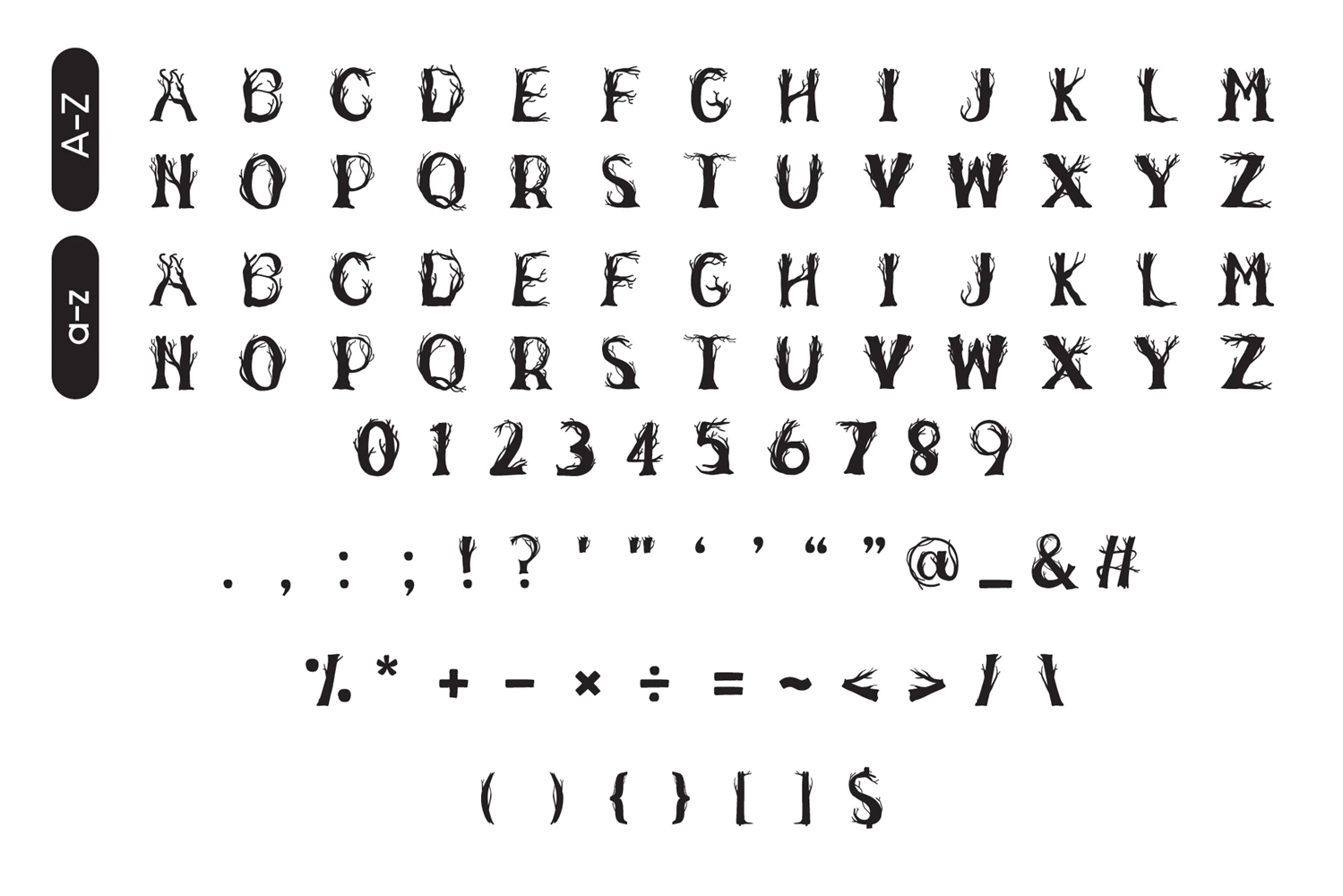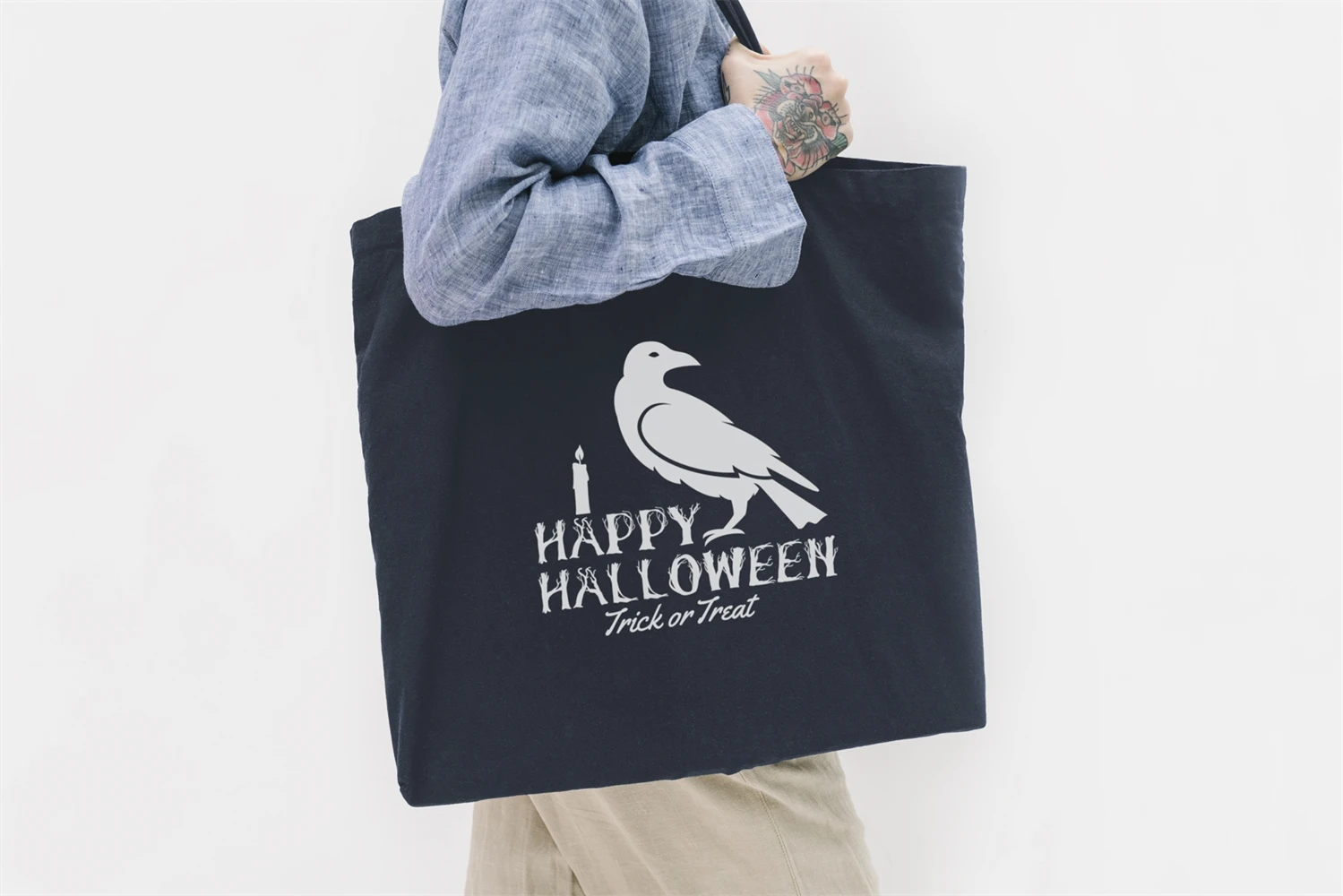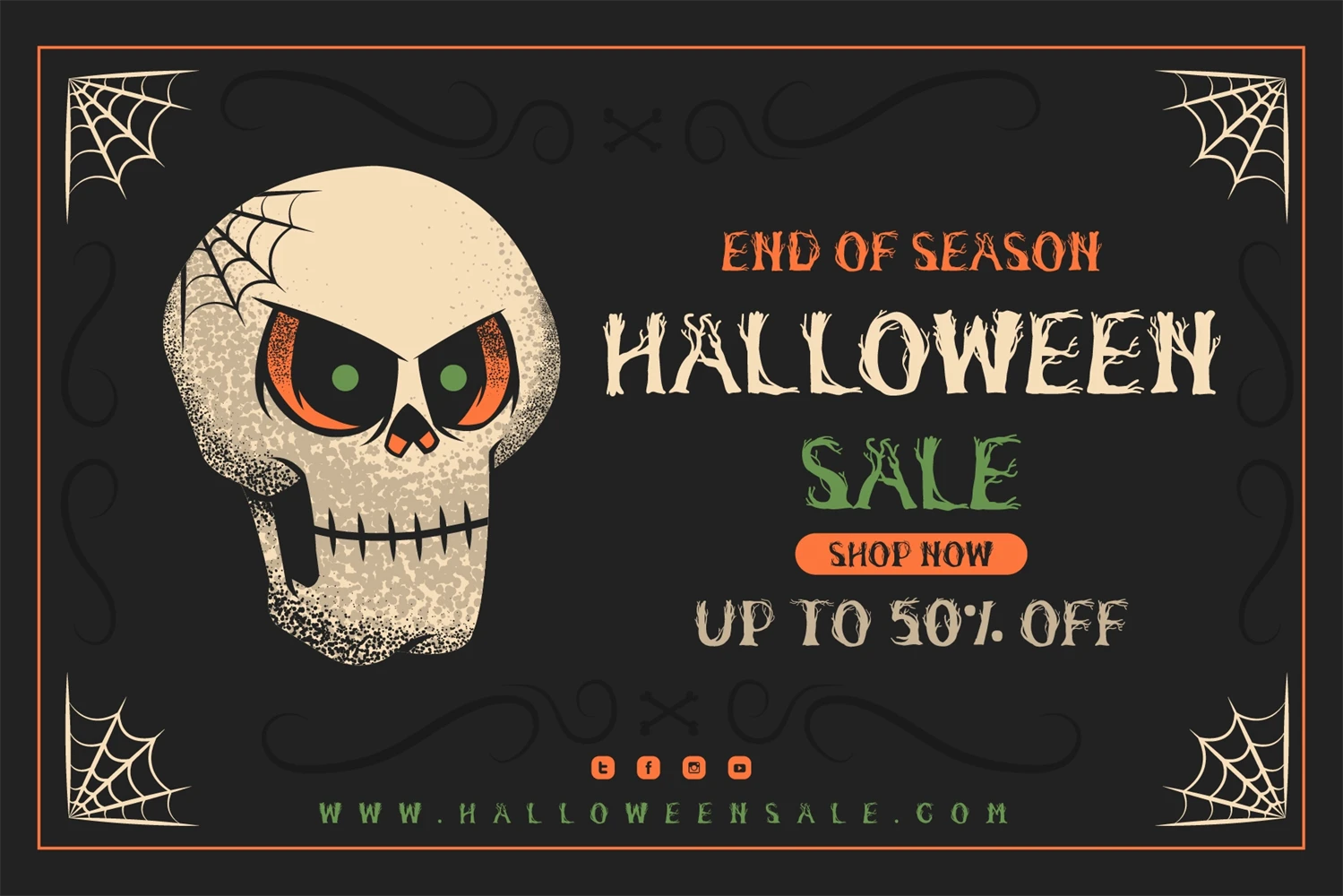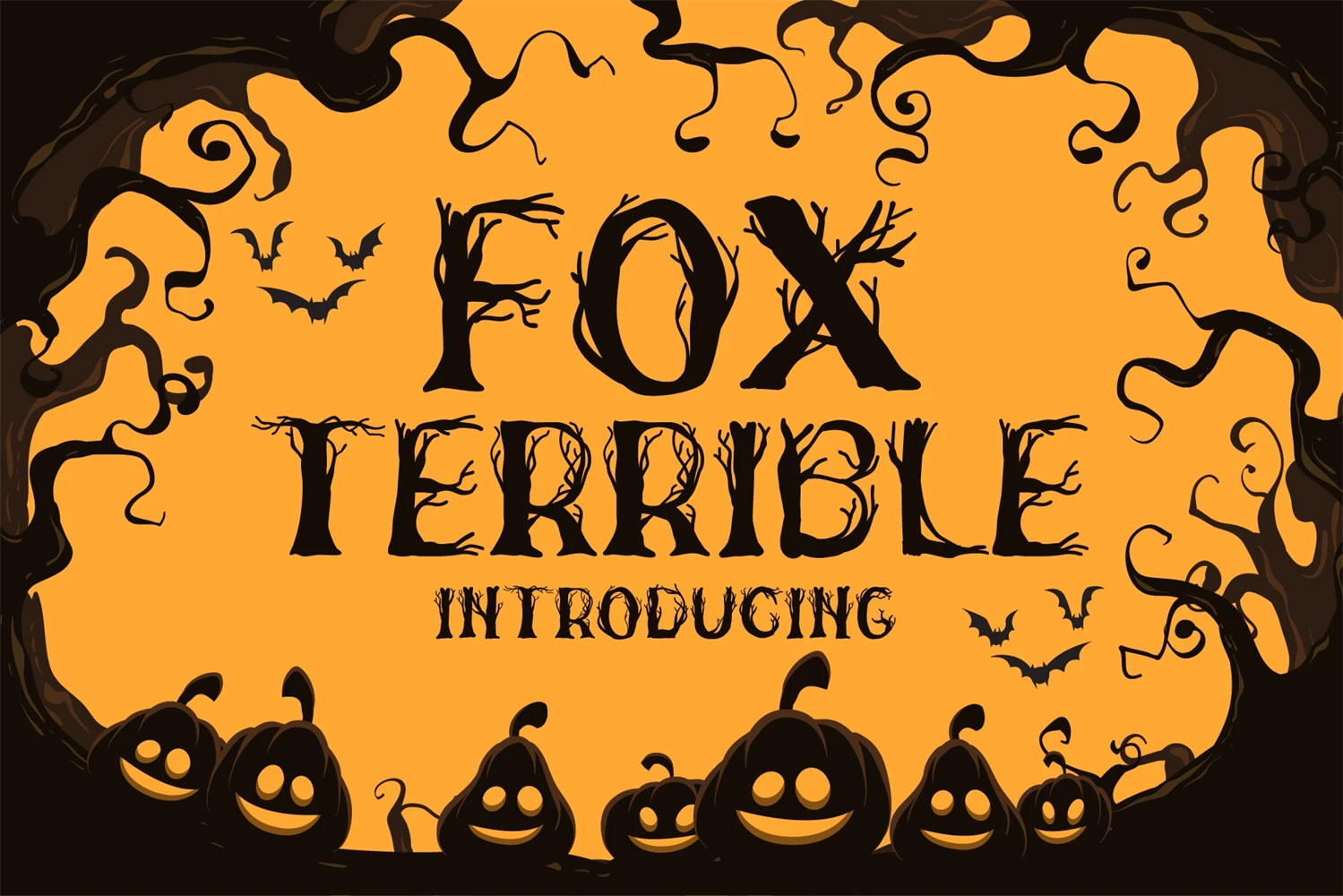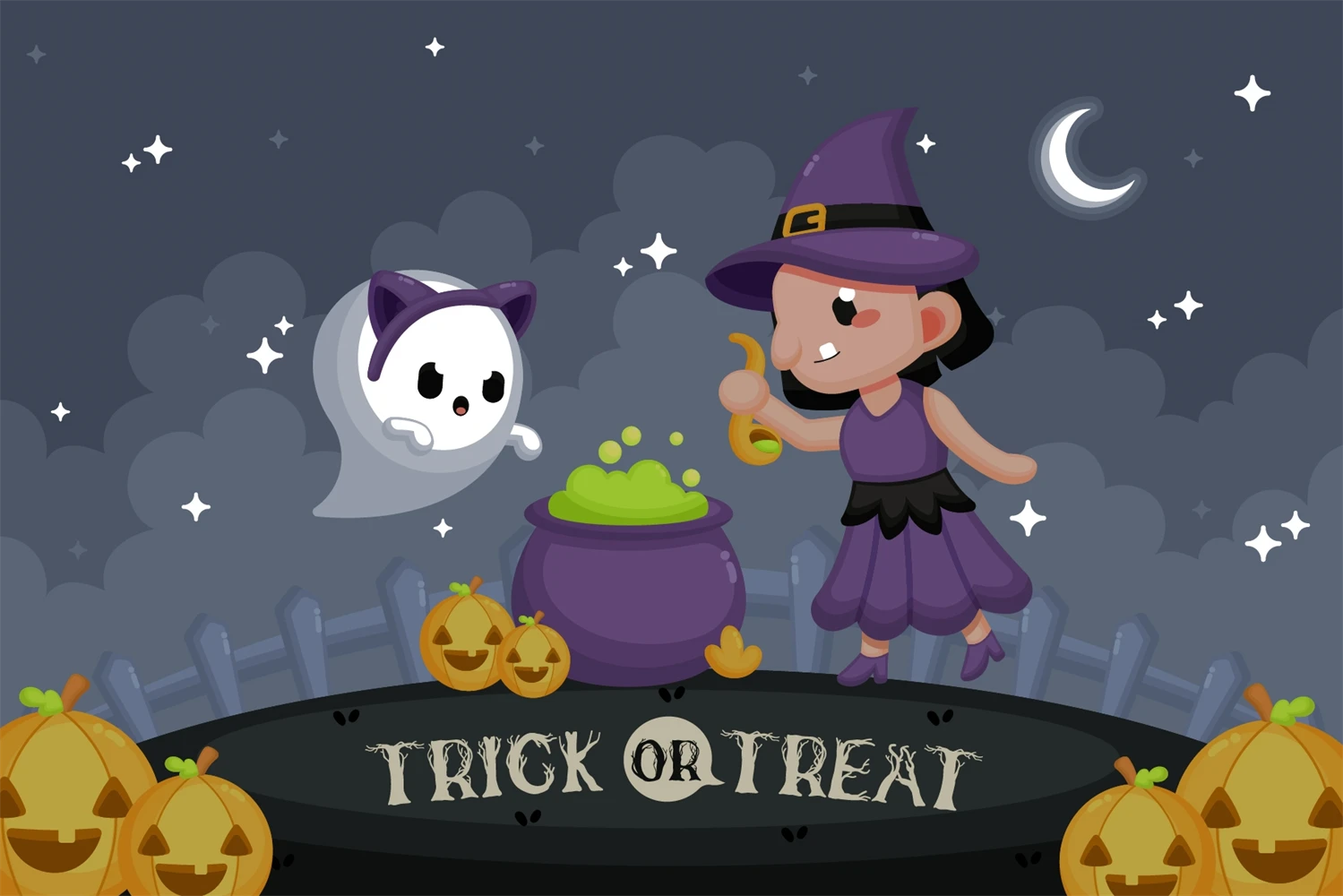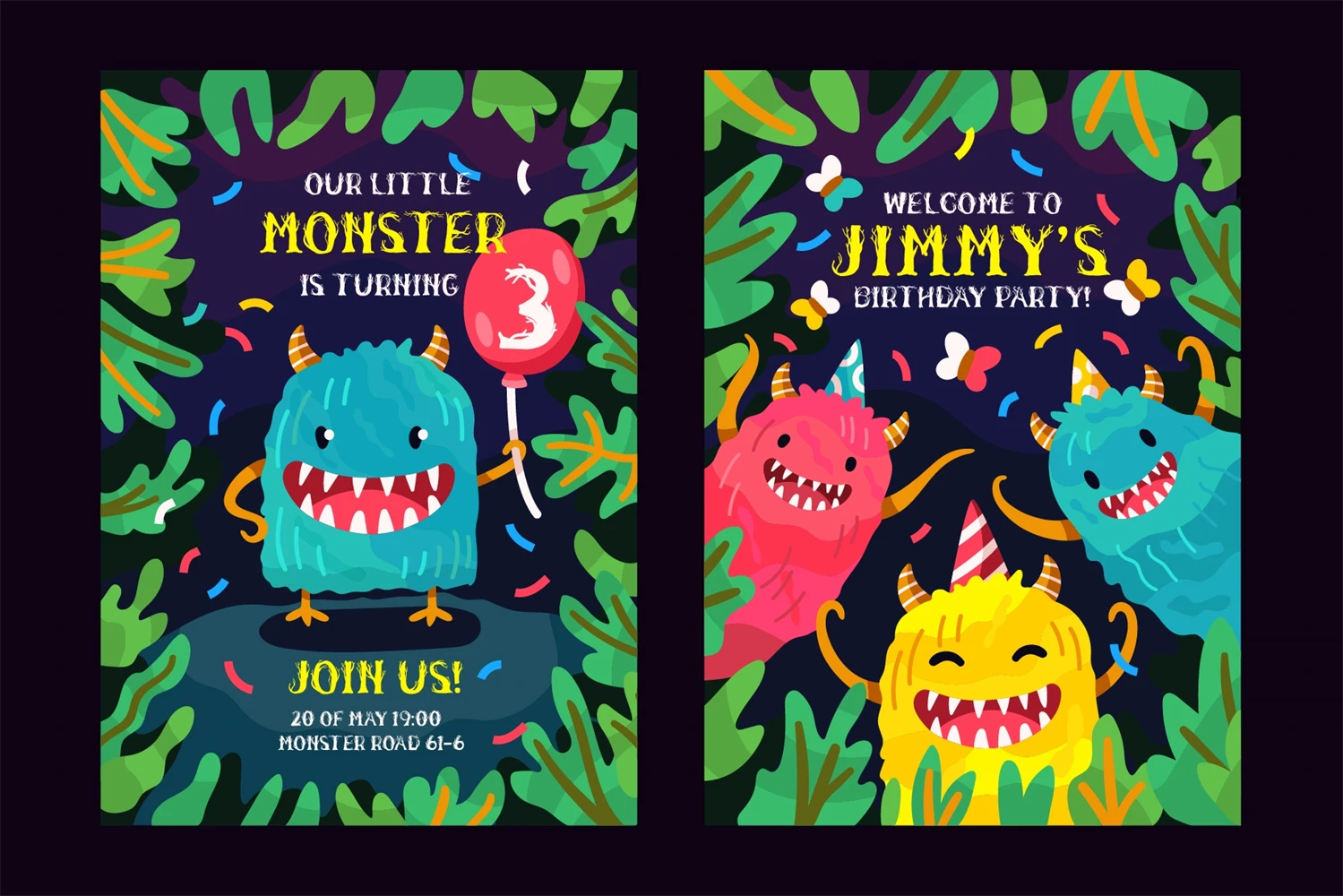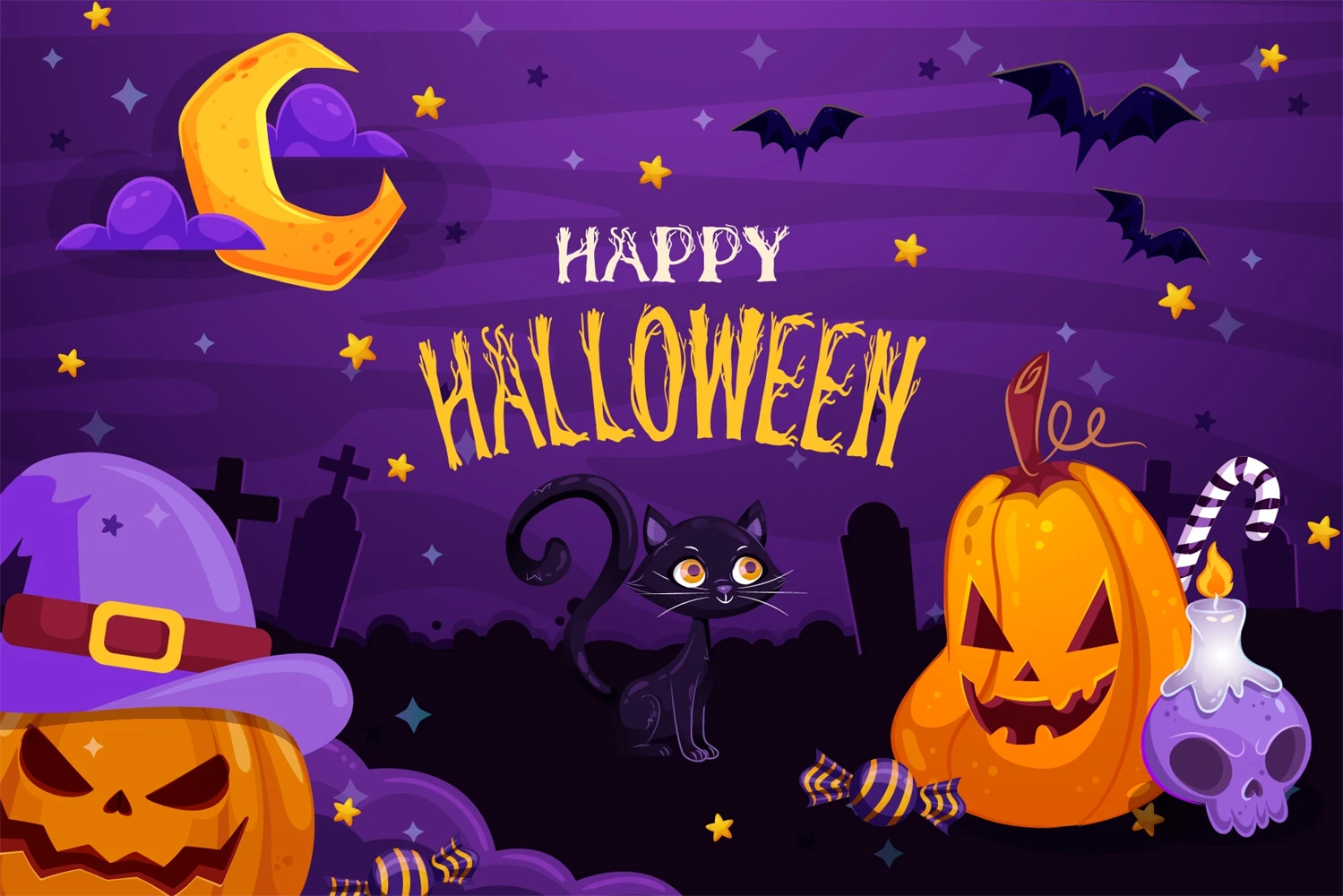
Fox Terrible is a fun decorative font with a Halloween vibe. It is suitable for a variety of designs such as Halloween and childrens themes. It is perfect for logos, T-shirts, papers, print designs, website headers, photo frames, flyers, music covers, posters, image sliders, and much more.